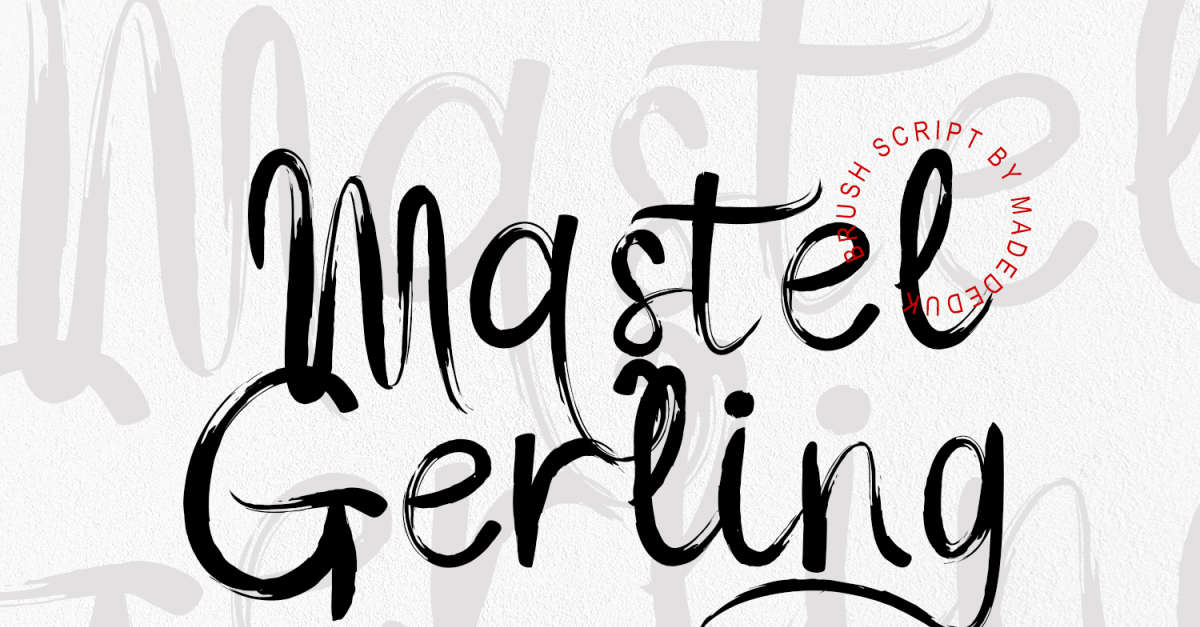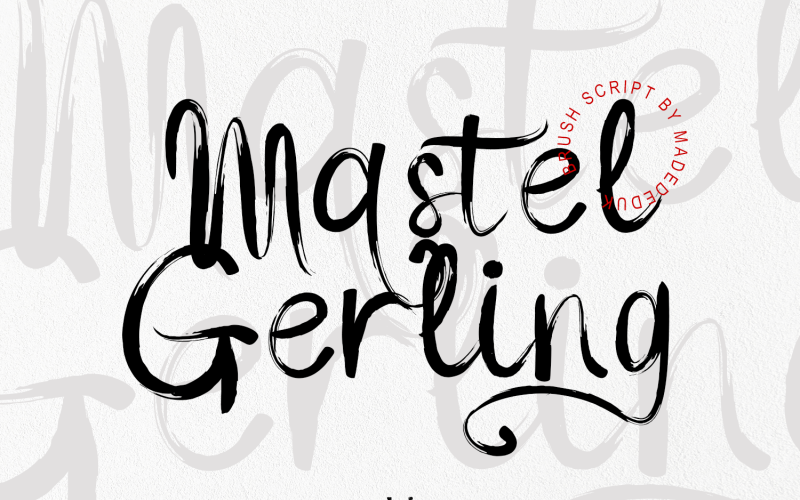
Mastel Gerling - Brush Script
Mastel Gerling is a modern handwritten Brush. This font perfect for poster design, book covers, merchandise, fashion campaigns, newsletters, branding, advertising, magazines, greeting cards, album covers, and quote designs and more.
Feature
- Uppercase & Lowercase
- Number & Symbol
- International Glyphs
- Multilingual support
- Alternative
- Ligature